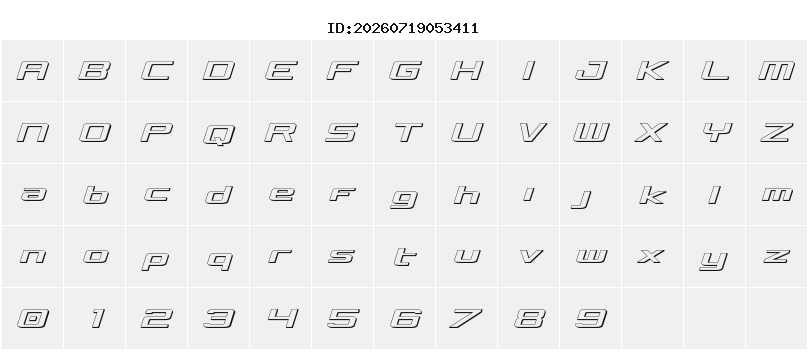
Concielian 3D Semi-Italic Preview
• Font Name: Concielian 3D Semi-Italic
• Font Style: Semi-Italic
• Full Font Name: Concielian 3D Semi-Italic
About Concielian 3D Semi-Italic.ttf
Concielian 3D Semi-Italic.ttf is a modern, elegant sans-serif font designed for ultimate readability and visual harmony. Perfect for branding, headlines, web design, and print materials.